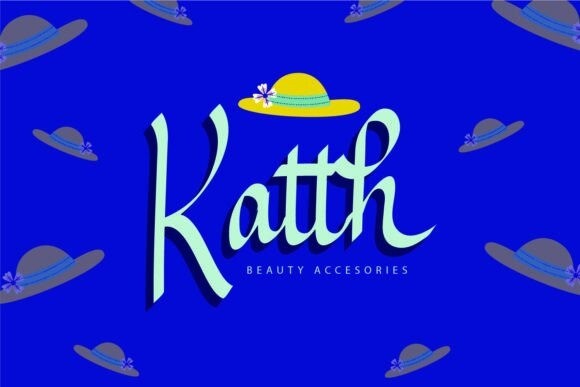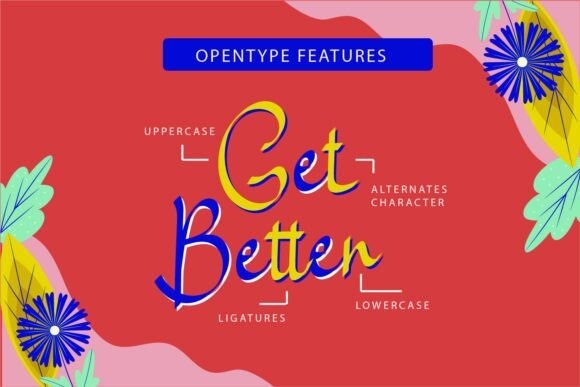
Fapiiano Font
Fapiiano is a handwritten font that exudes sophistication and luxury with its intricate lines and refined curves. Each letter is a masterpiece of craftsmanship and artistry, making it an exclusive and exquisite choice for designs that require a touch of elegance and refinement.